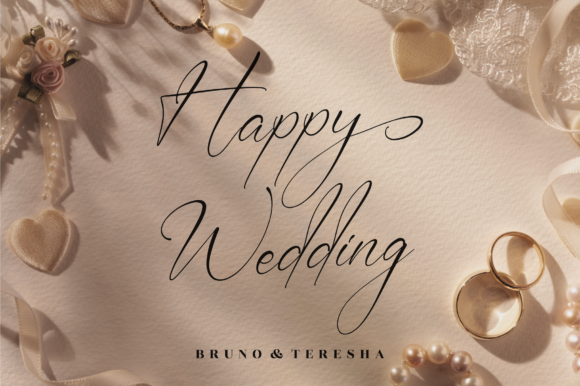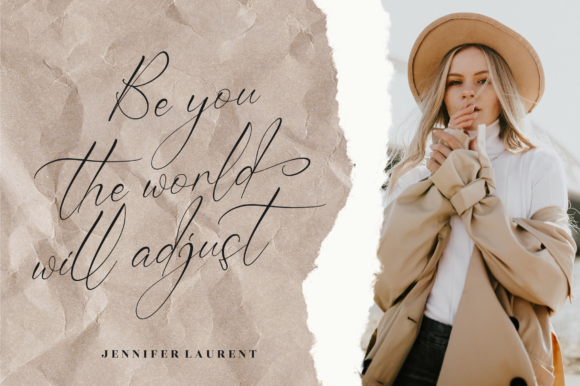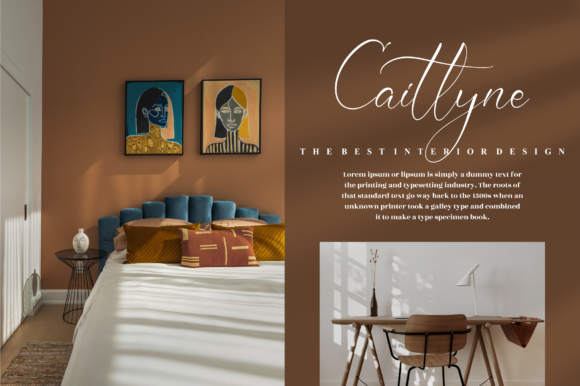
Introduction to Nattasha Beautica Font
As a designer, have you ever stumbled upon a project that requires a delicate touch, yet exudes elegance and sophistication? Perhaps you’re working on a branding project for a luxury homeware brand, or creating a set of product packaging that needs to stand out on store shelves. Whatever your creative endeavor, the right font can make all the difference.
That’s where the Nattasha Beautica Font comes in – a beautiful script font that adds a touch of whimsy and sophistication to any design project. With its high-quality design and PUA encoding, this font is perfect for designers who want to create stunning visuals with ease.
Key Features of Nattasha Beautica Font
- High-quality design resource ideal for creative projects requiring a unique touch.
- Features a transparent background, allowing for seamless integration with various design elements.
- Features a large character set, including uppercase and lowercase letters, numbers, and punctuation marks.
- Designed to be highly legible, even at small font sizes, making it perfect for body text and headings.
Honest Review: Nattasha Beautica Font
I recently stumbled upon the Nattasha Beautica Font, a free design resource that has left me impressed. This creative project is perfect for anyone looking to add a touch of elegance to their work.
- ✨ High-quality design: The Nattasha Beautica Font boasts a sleek and sophisticated look that is sure to elevate any design project.
- ✨ Customizable: The font is highly customizable, making it perfect for creative projects where you need to stand out.
However, I did encounter a few limitations when using the font. ⚠️ For example:
- ⚠️ Transparent background: The font’s transparent background can be a bit tricky to work with, especially if you’re not familiar with design software.
Overall, I’m impressed with the Nattasha Beautica Font. It’s a high-quality design resource that is perfect for creative projects. With a few minor limitations, it’s definitely worth considering for your next design project.
Tips for Getting the Most Out of Nattasha Beautica Font
To get the most out of the Nattasha Beautica Font, use it with a transparent background to create a unique and eye-catching design. You can also experiment with different font sizes and colors to add emphasis to your text. Additionally, use the font in conjunction with other high-quality design elements to create a cohesive and professional look.
The Nattasha Beautica Font is ideal for use in a variety of creative projects, including branding materials, social media graphics, and marketing materials. Its high-quality design and transparent background make it perfect for use in presentations, posters, and other visual aids.
Q: What is the recommended font size for the Nattasha Beautica Font?
The recommended font size for the Nattasha Beautica Font is between 12pt and 24pt, depending on the design project and the desired level of legibility. However, you can experiment with different font sizes to find the perfect fit for your creative project.